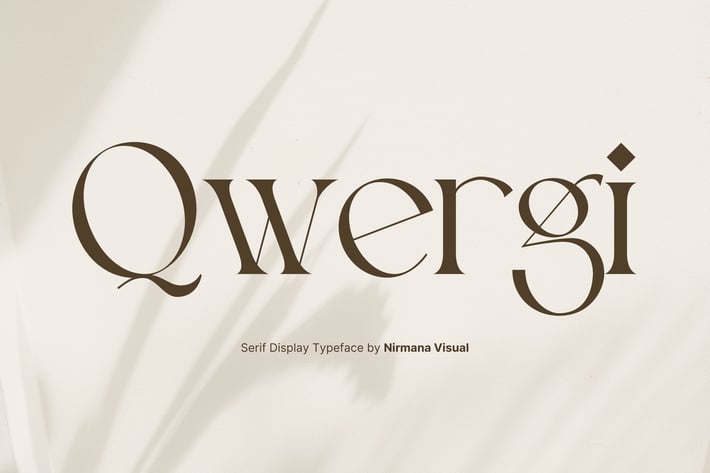
Qwergi - Logo Font
Qwergi, contemporary of serif font,
Qwergi offers beautiful typographic harmony for a diversity of design projects, including logos & branding, social media posts, advertisements & product designs.